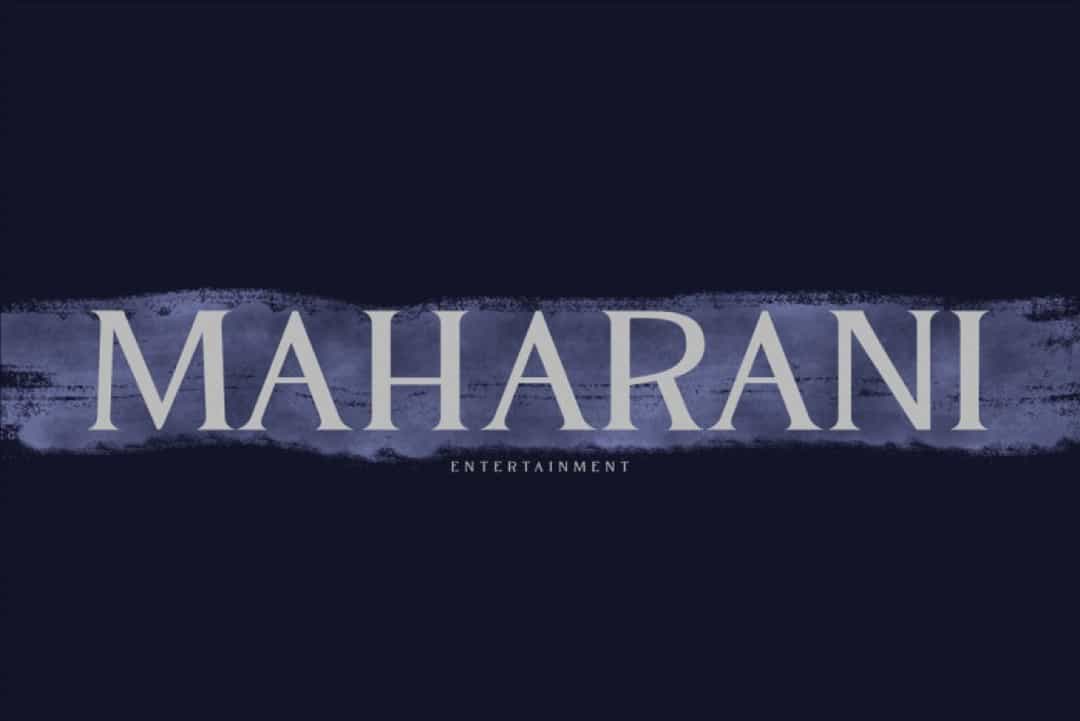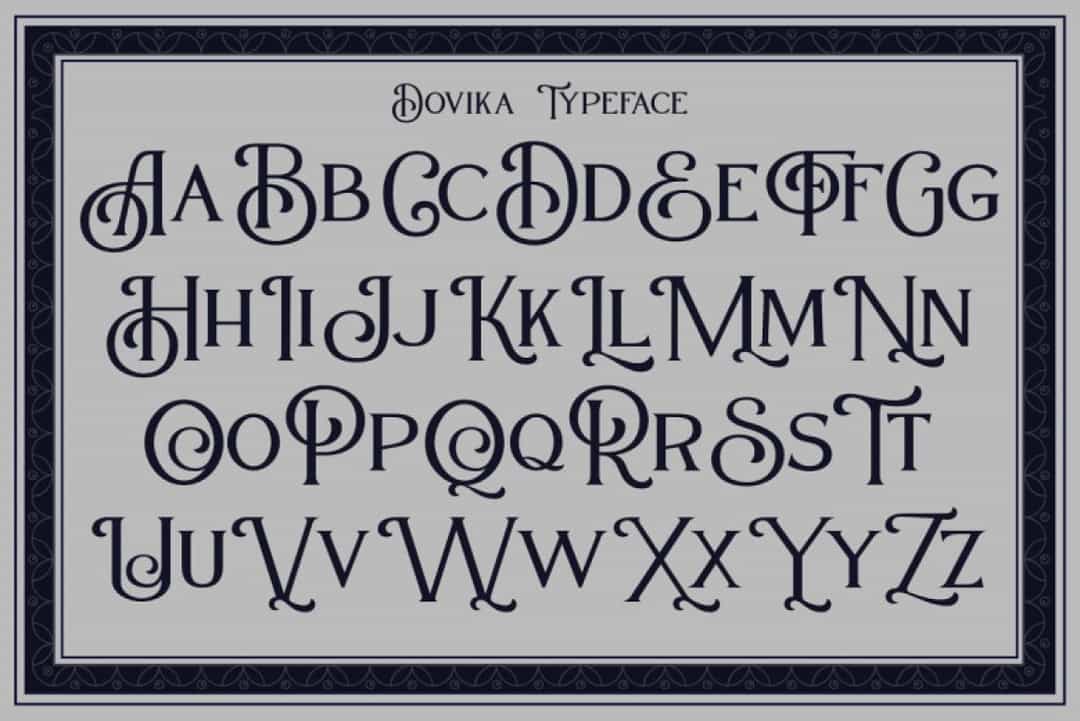
Dovika Serif fonts are inspired by Victorian-era vintage, yet updated for modernity and elegance with just a hint of thread to keep the vintage aesthetic from appearing too dated and boring. Dovika features distinctive uppercase letters giving vintage appeal while smaller letters create modernity as one unit; their appearance should appear seamless to viewers.